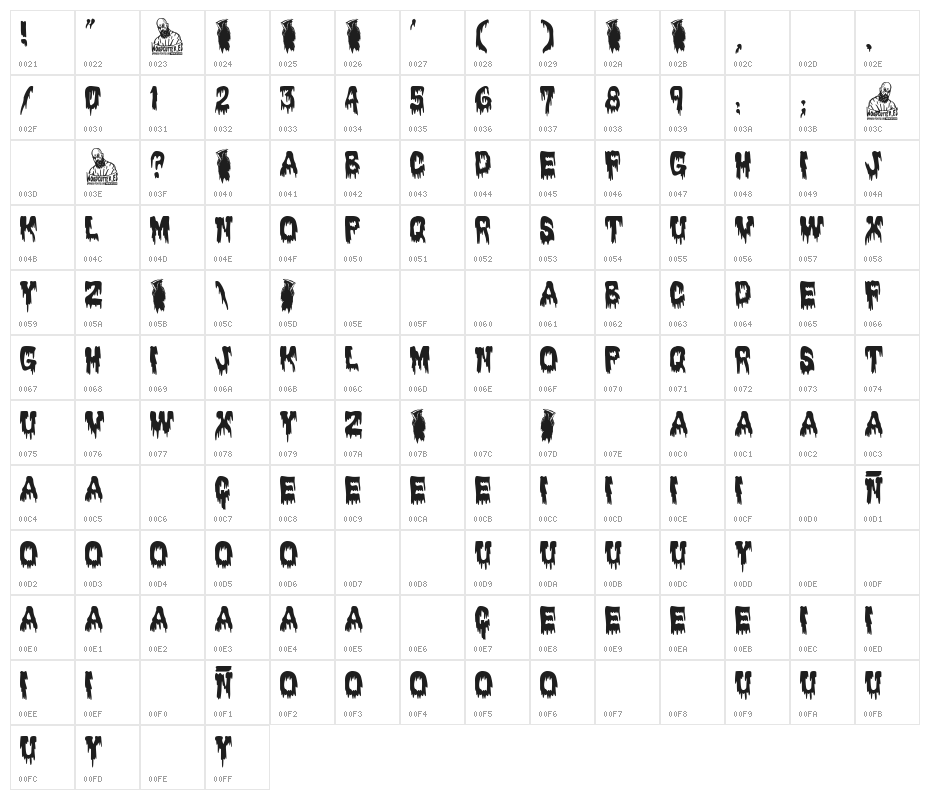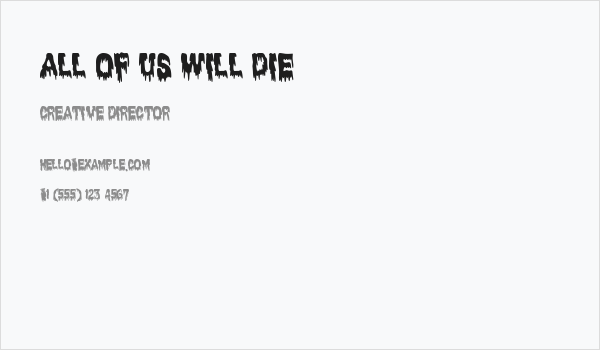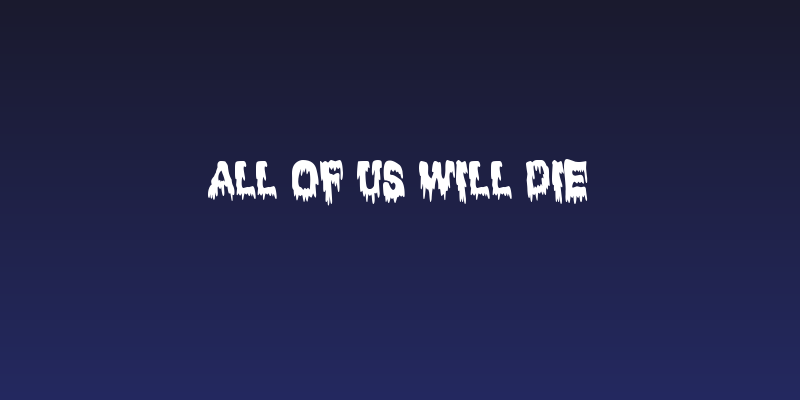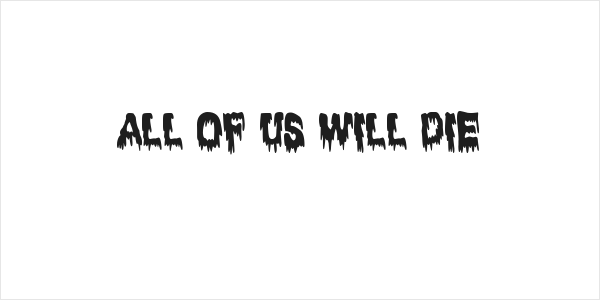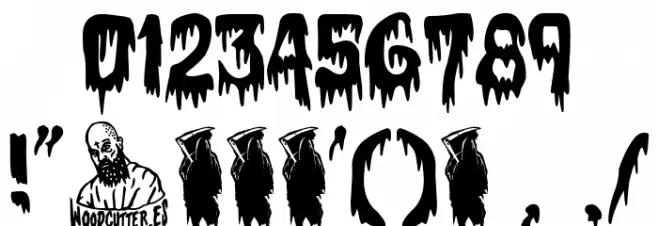
All of us will die Font
All of us will die Description
A bold, dripping display font with irregular, jagged edges and a horror-inspired style, evoking the appearance of melting or oozing letters. The characters are uppercase, with exaggerated descenders and uneven stroke thickness, creating a dramatic and unsettling effect.
| Overall Style | Decorative, Horror, Grunge |
| Use Case | Headlines, Posters, Logos, Event Titles |
| Proposed Projects | Halloween posters, horror movie titles, haunted house flyers, spooky event branding, themed party invitations. |